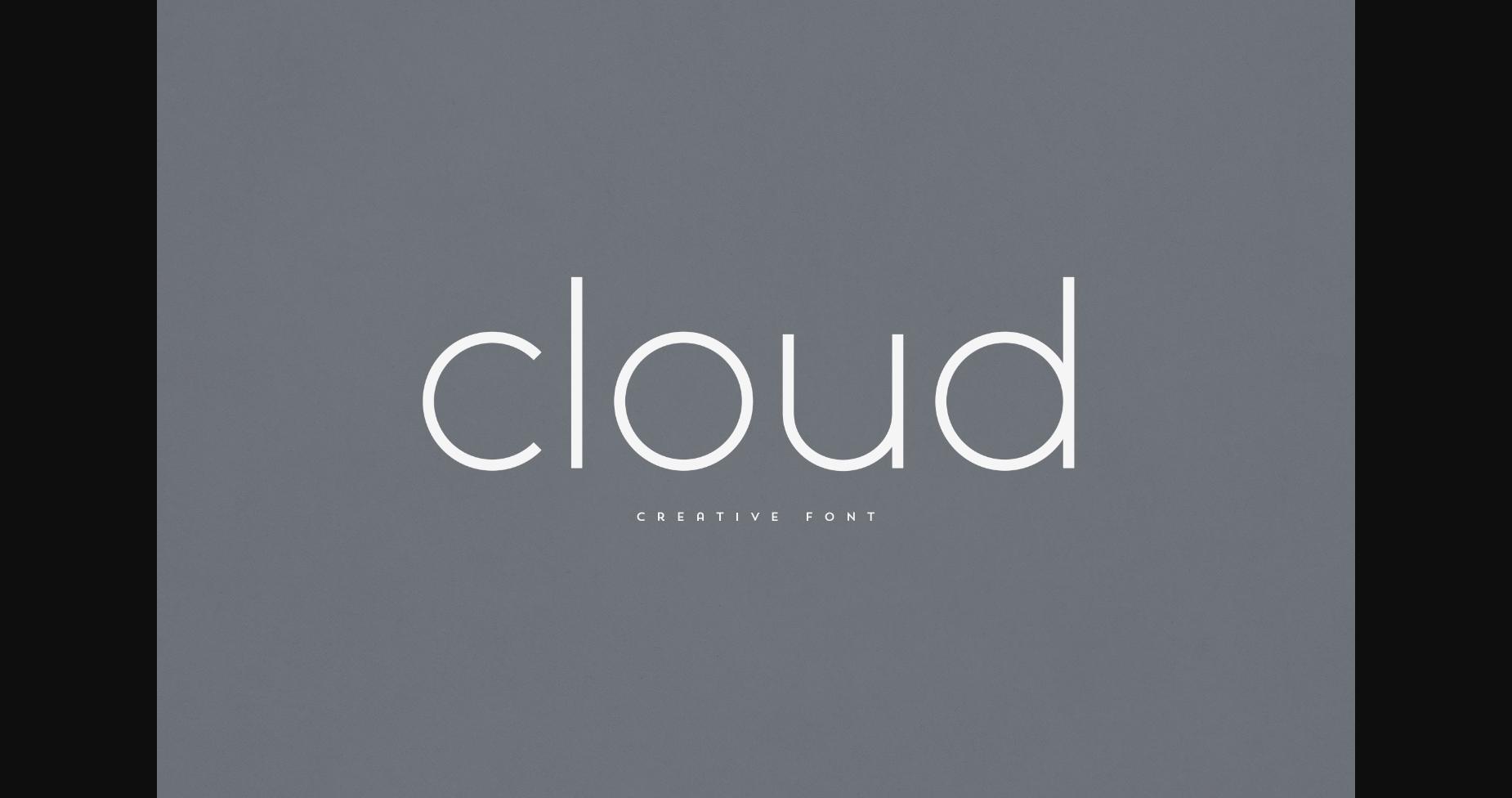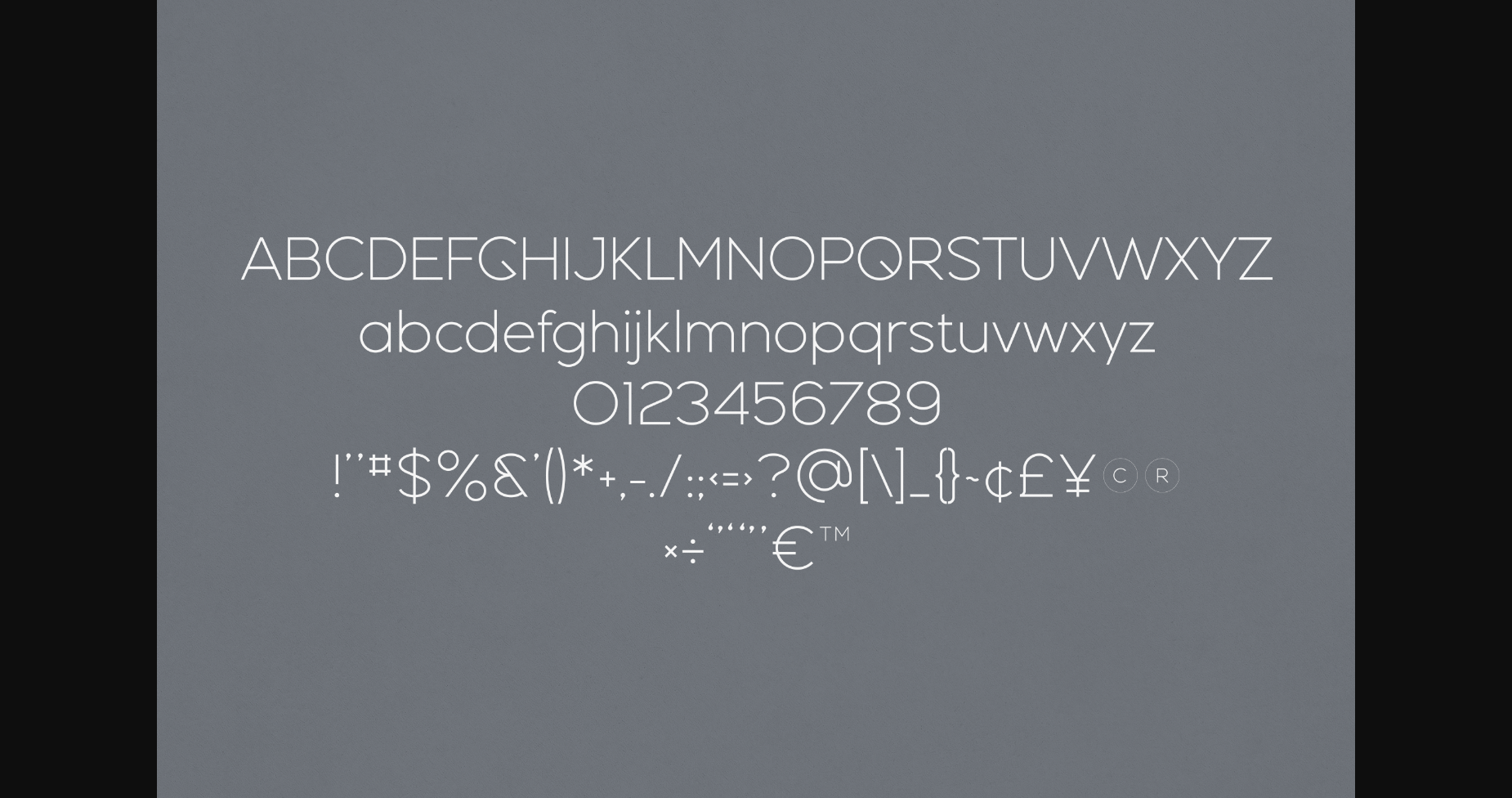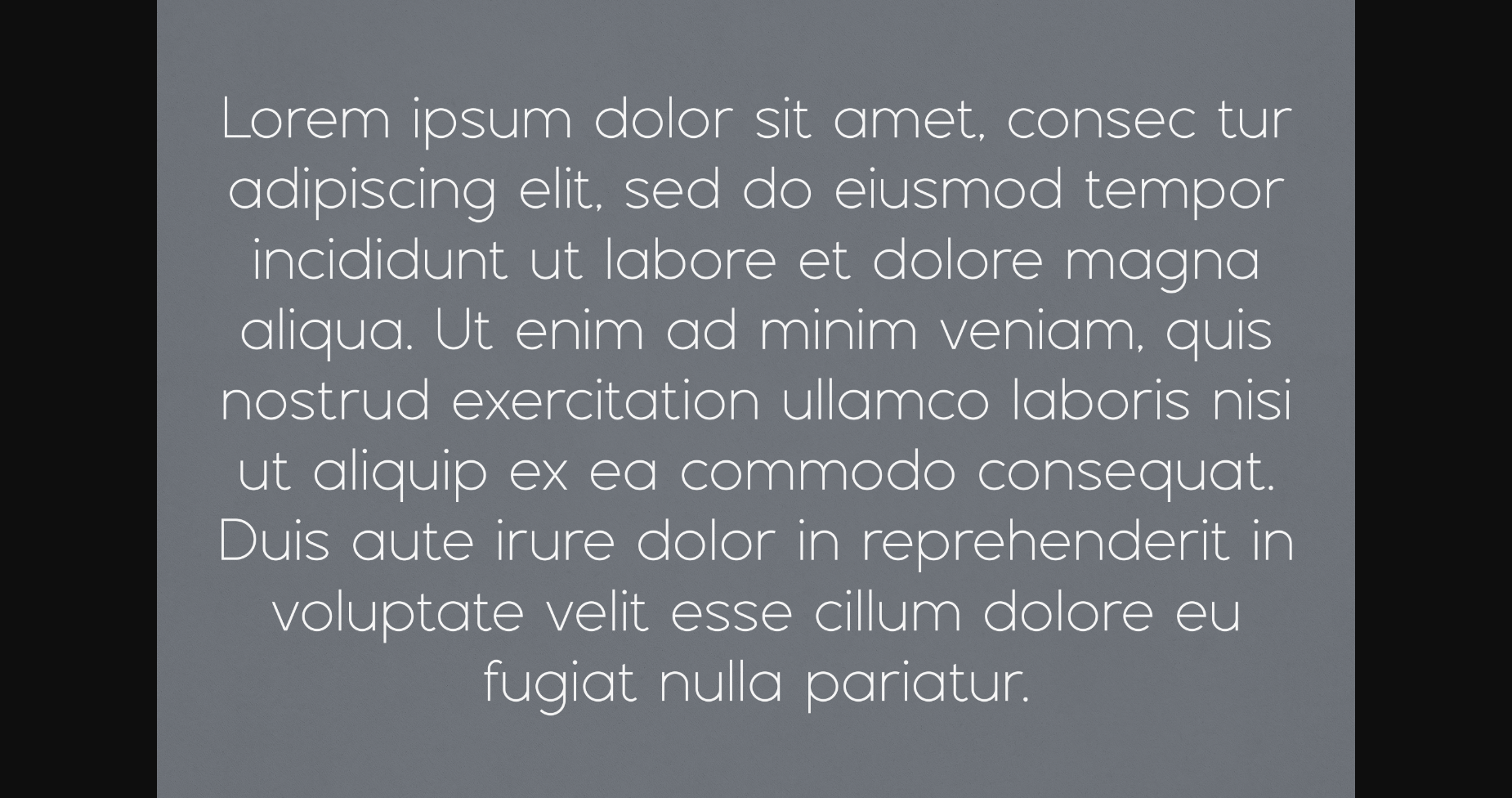
About Cloud Font
Cloud is an elegant and versatile sans serif font that will make your typography truly unique! It will enchant every logo, branding, headline, or plain text!